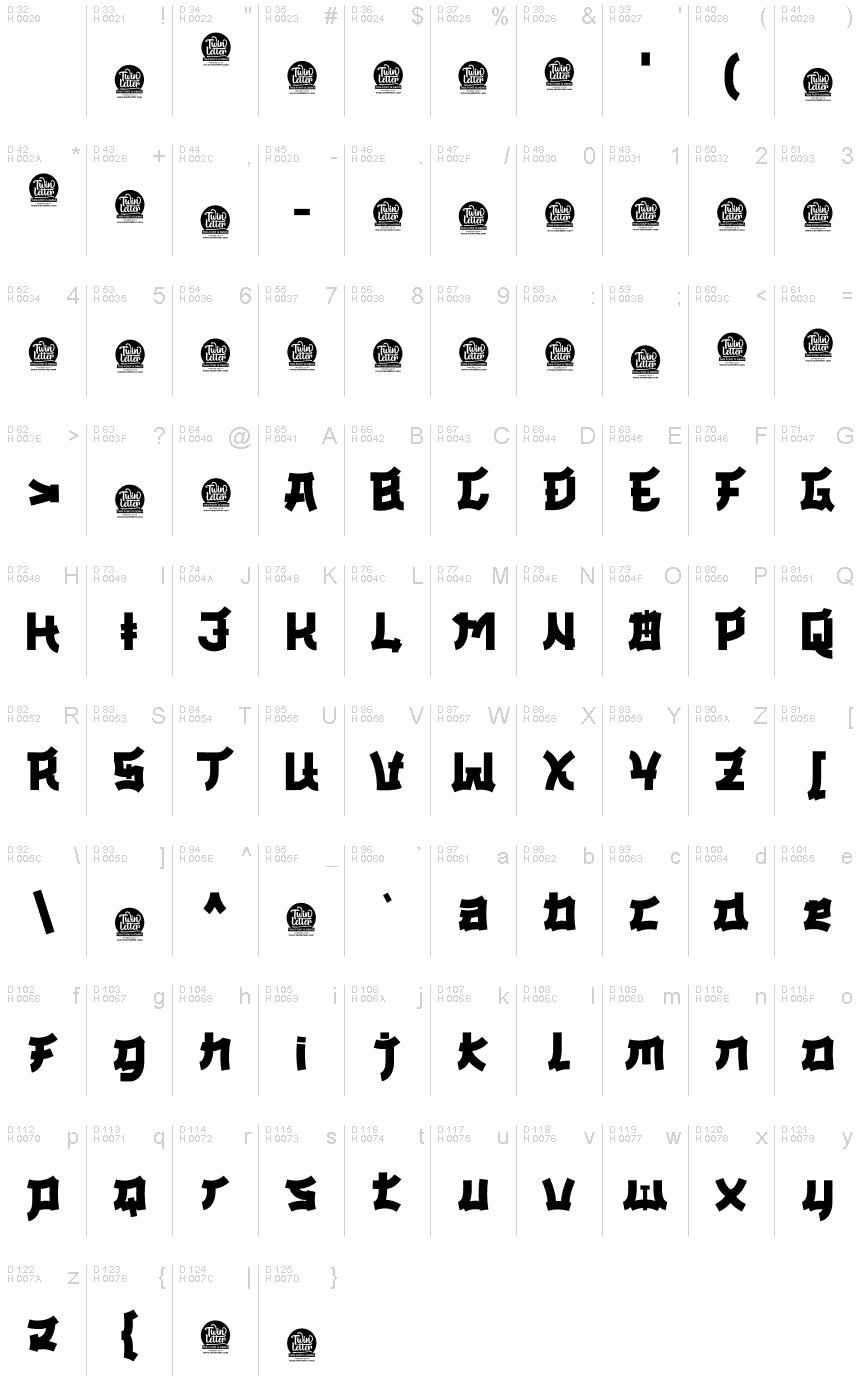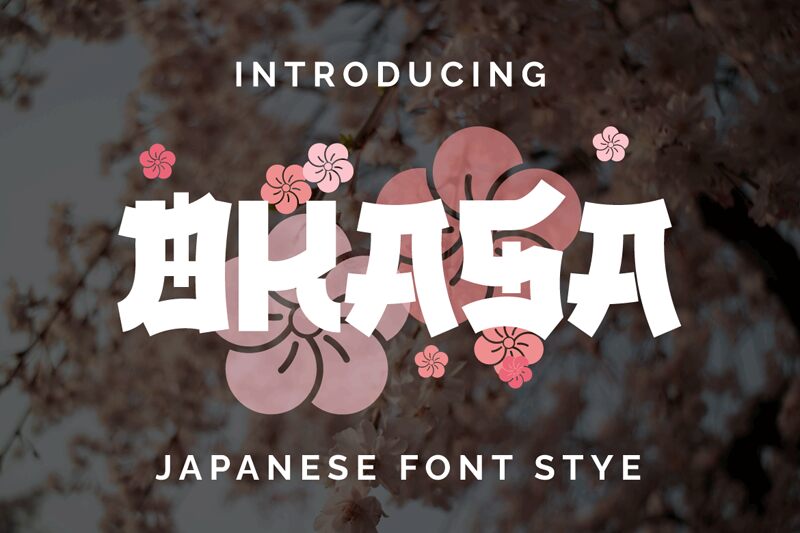
OKASA Personal Use
OKASA is a bold, wide Japanese-style font designed by rozi. It's perfect for making an impact with its foreign style, making it ideal for creative projects such as logos, posters and branding.